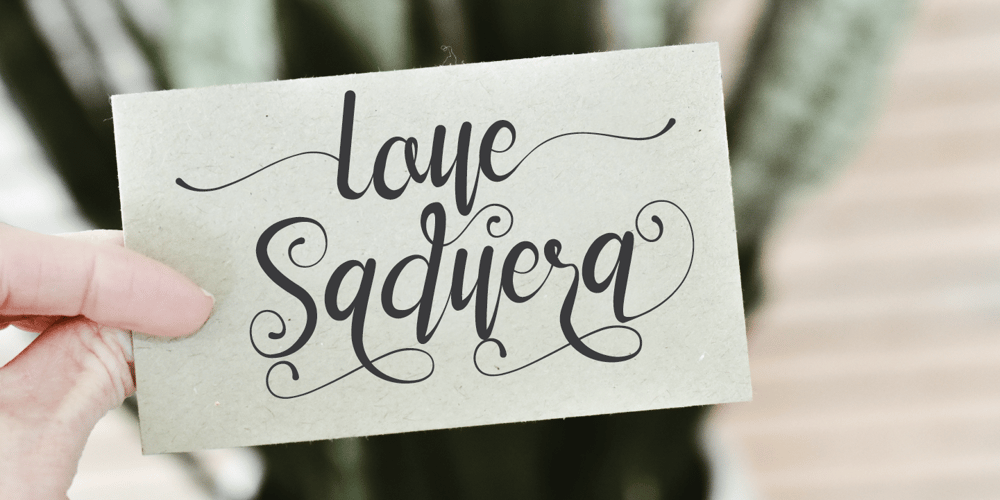
Katerlin
Katerlin font
Katerlin Font Family was designed by Muksalmina and published by Muksal Creatives. Katerlin contains 1 styles and family package options. Katerlin is a handwritten font which feels incredibly elegant and flowing. It looks stunning on wedding invitations, thank you cards, quotes, greeting cards, logos, business cards and every other design which needs a handwritten touch.This font is PUA encoded which means you can access all of the glyphs and swashes with ease!